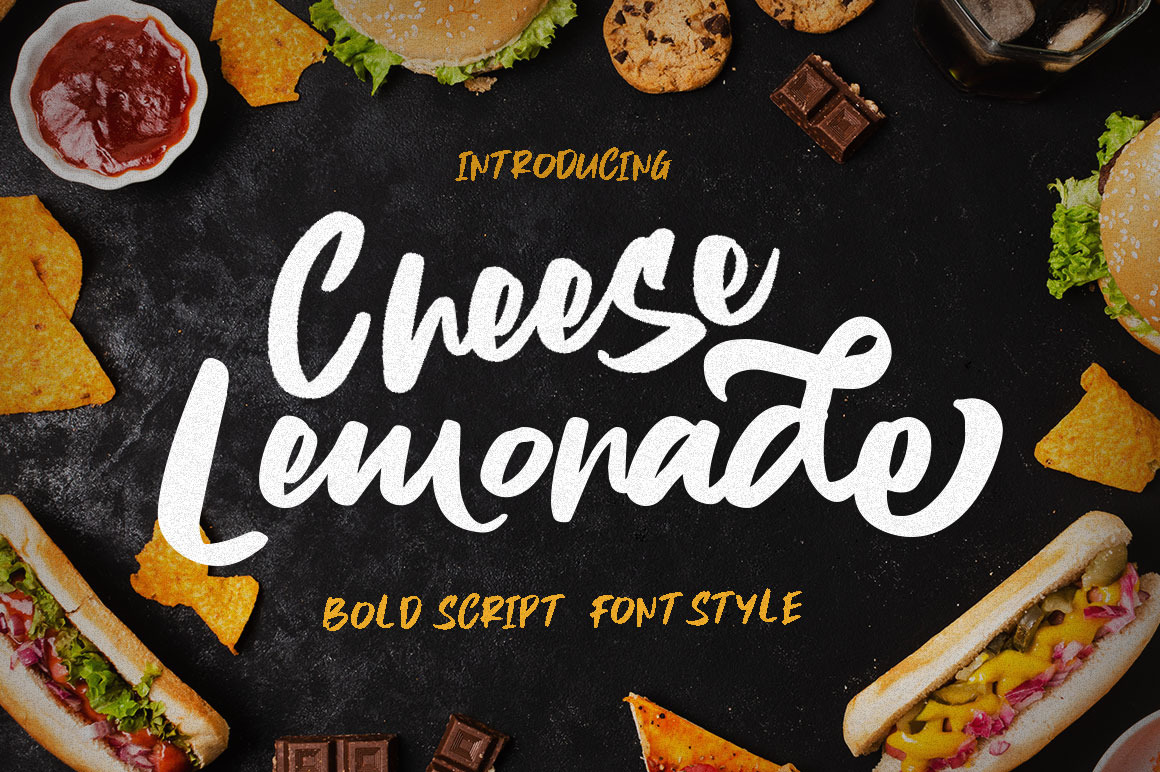
Cheese Lemonade - Food Display Font
Introducing Cheese Lemonade handwriting brush with some perfectly for Food Heading. Ready used with awesome character!
- Stylistic Set